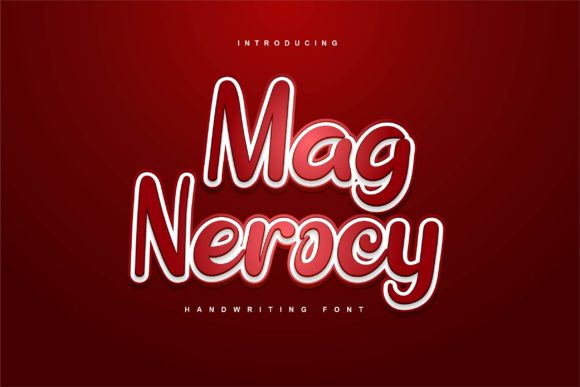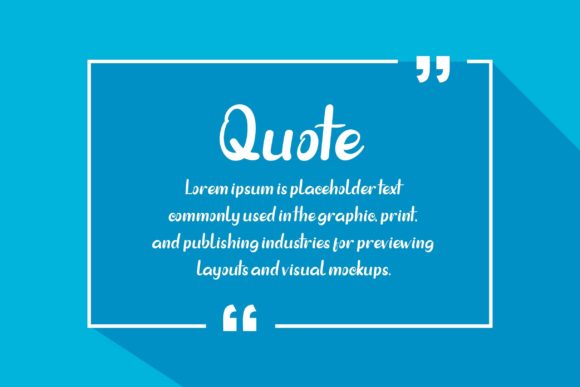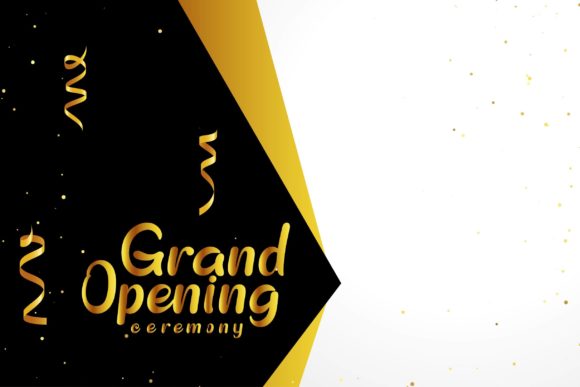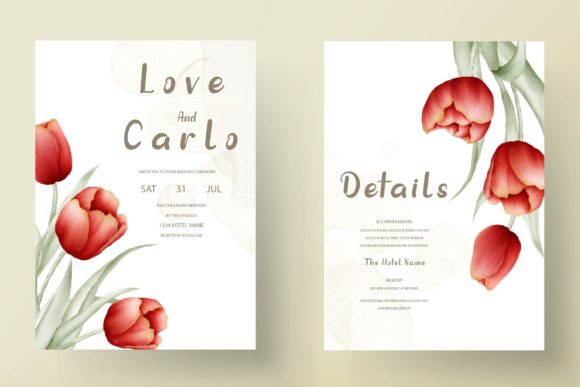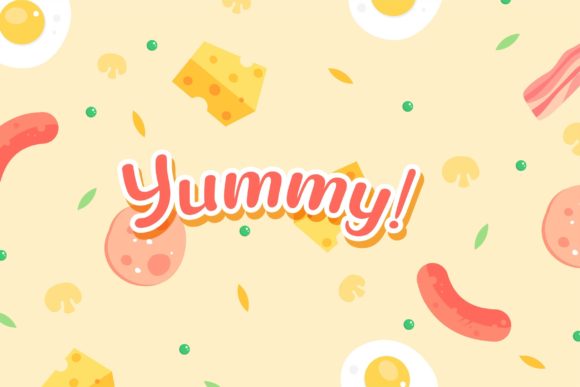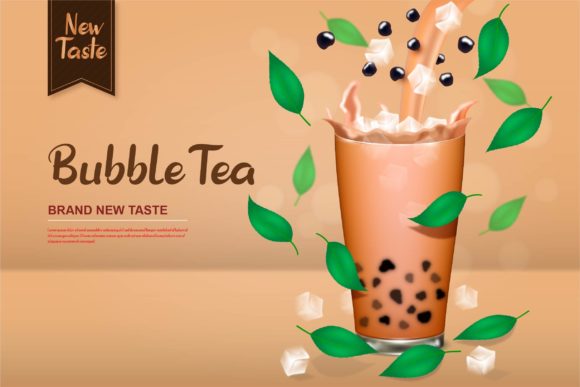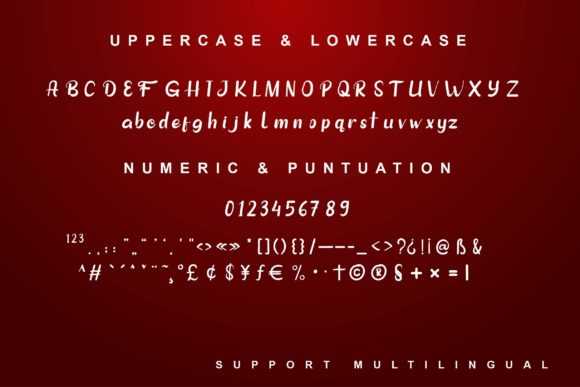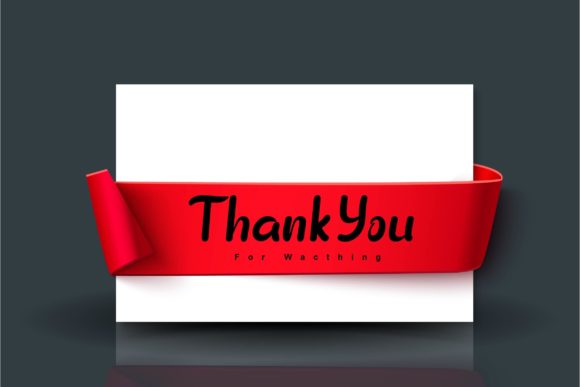
Mag Nerocy Font
About Mag Nerocy Font
Mag Nerocy is a bold and chunky handwritten font that commands attention with its strong and robust appearance. Its versatility and attractive style make it a perfect choice for a wide range of creative projects, allowing your creations to truly stand out.
The bold and chunky nature of Mag Nerocy gives your text a bold presence, making it ideal for product names, quotes, page covers, branding, and various other design elements. The thick strokes and prominent letterforms create a sense of strength and impact, ensuring that your message is delivered with confidence and authority.
Whether you’re designing a logo, crafting social media graphics, or creating eye-catching headlines, Mag Nerocy’s versatility shines through. It adapts effortlessly to different design themes and styles, adding a touch of uniqueness and visual appeal to your projects.
The bold and chunky characters of Mag Nerocy grab attention and leave a lasting impression. Its distinctive style sets your creations apart, making them instantly recognizable and memorable. The font’s boldness also ensures excellent readability, even at smaller sizes, allowing your audience to engage with your content effortlessly.
Mag Nerocy is a versatile tool that empowers your creative ideas. Its appeal extends beyond traditional applications, making it suitable for various industries and niches. Whether you’re designing for fashion, technology, food, or any other field, Mag Nerocy’s bold and chunky aesthetic adds a modern and edgy touch that resonates with your target audience.
In summary, Mag Nerocy is a bold and chunky handwritten font that adds impact and visual appeal to your creations. Its versatility allows you to use it across different design projects, making them truly stand out. Embrace the strength and attractiveness of Mag Nerocy, and watch as it elevates your designs to new heights of success.